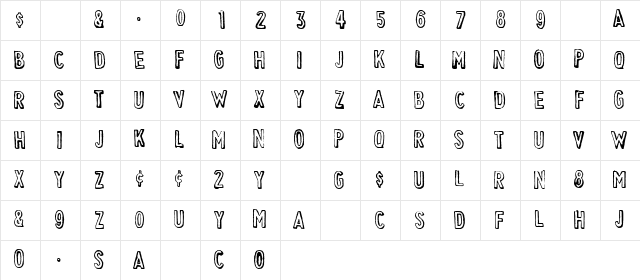
Cheapskate Outline
Style: Outline
Design Context for Cheapskate
Cheapskate is built around its visual character rather than neutral utility - its distinctive forms are designed to make an impression at display sizes.
Font Pairing: Pair with a clean neutral sans-serif for body copy to let Cheapskate's character lead without overwhelming the composition.
Pro Tip: Use Cheapskate exclusively at display sizes - it was designed to be seen, not read at length. Let a neutral companion handle body copy.